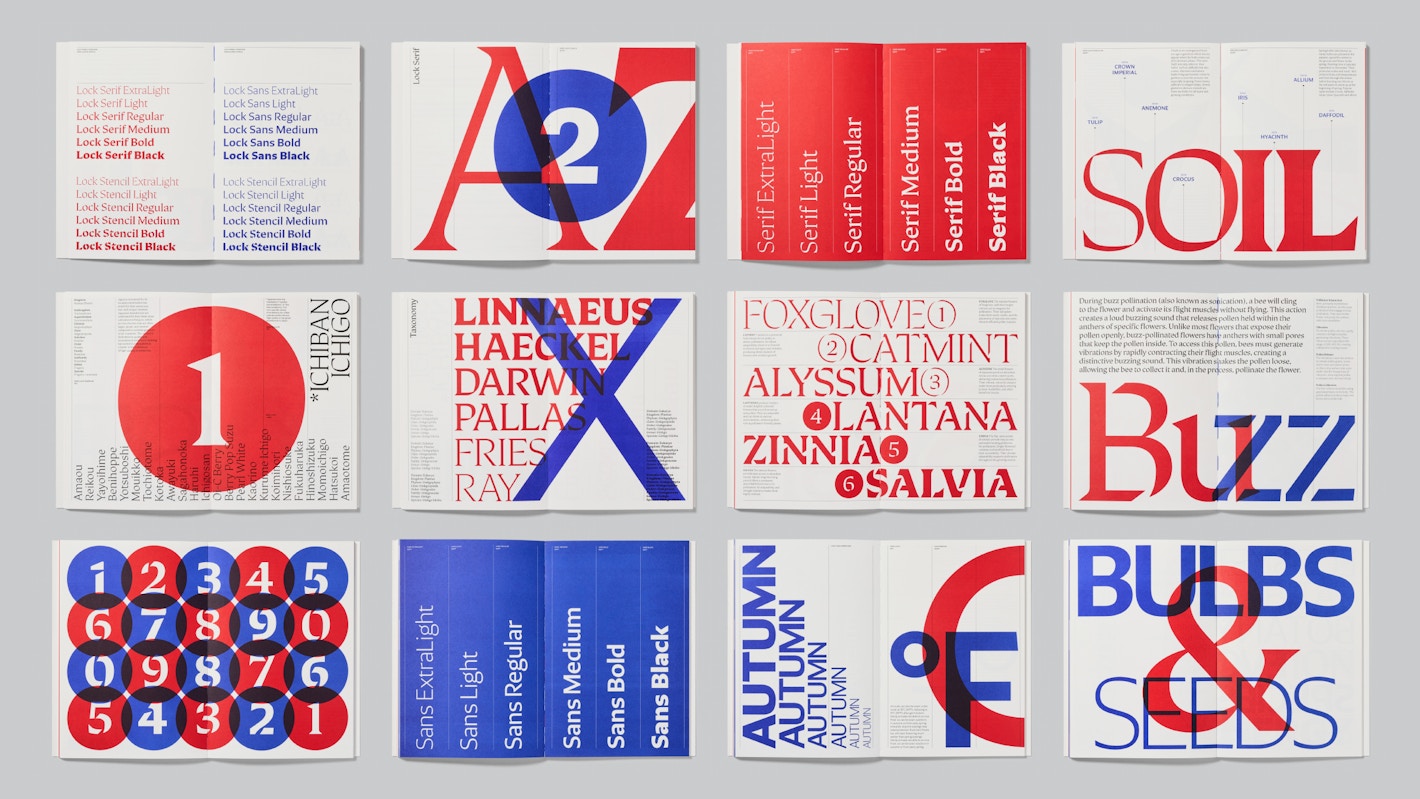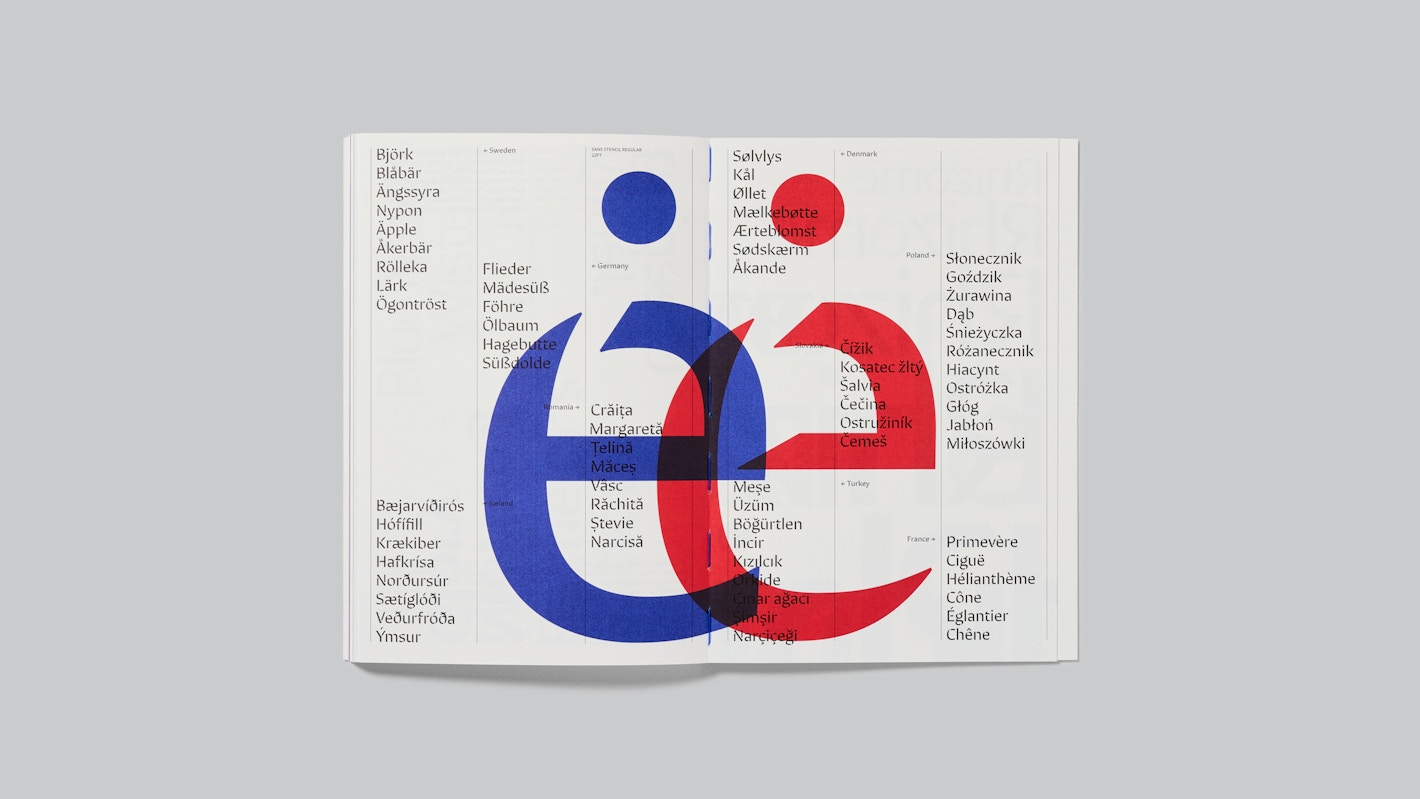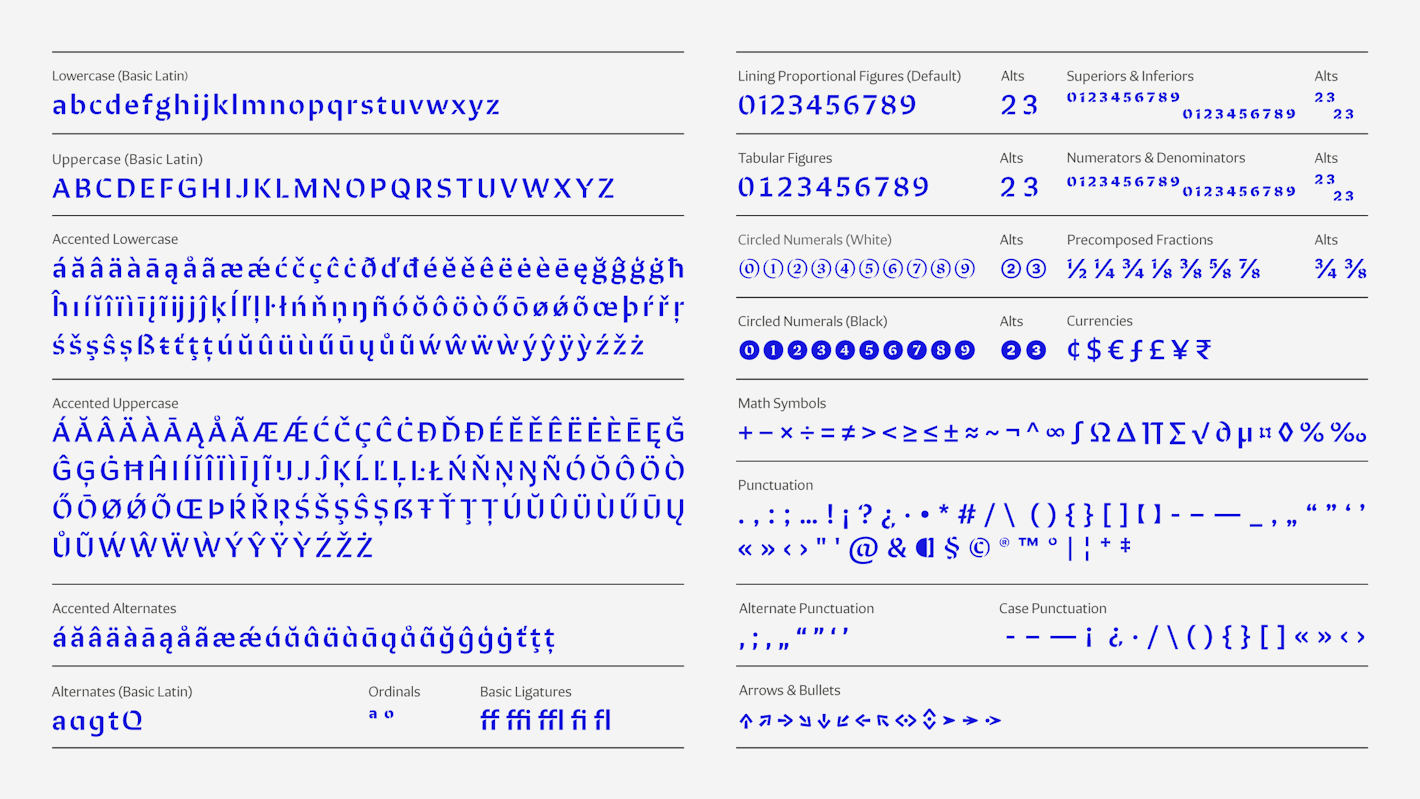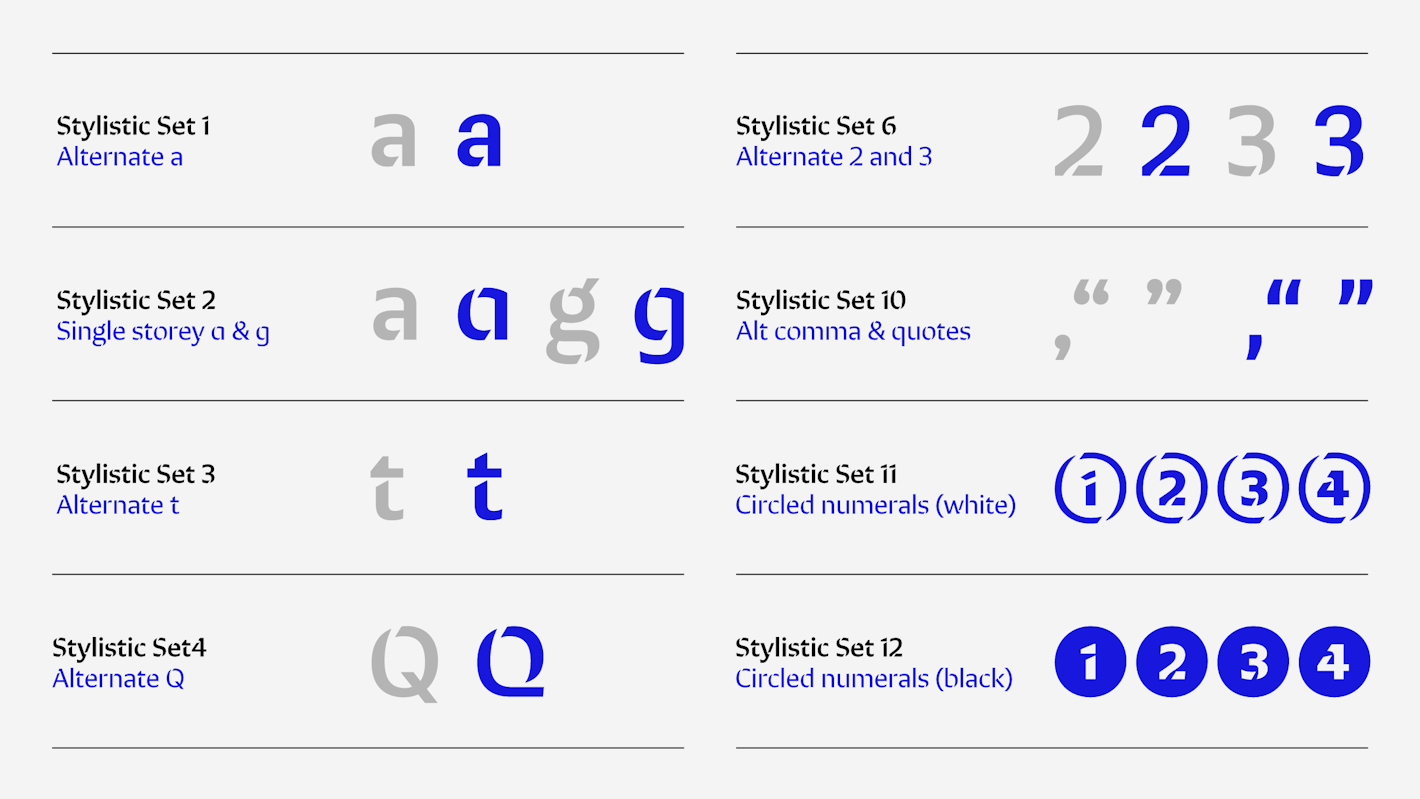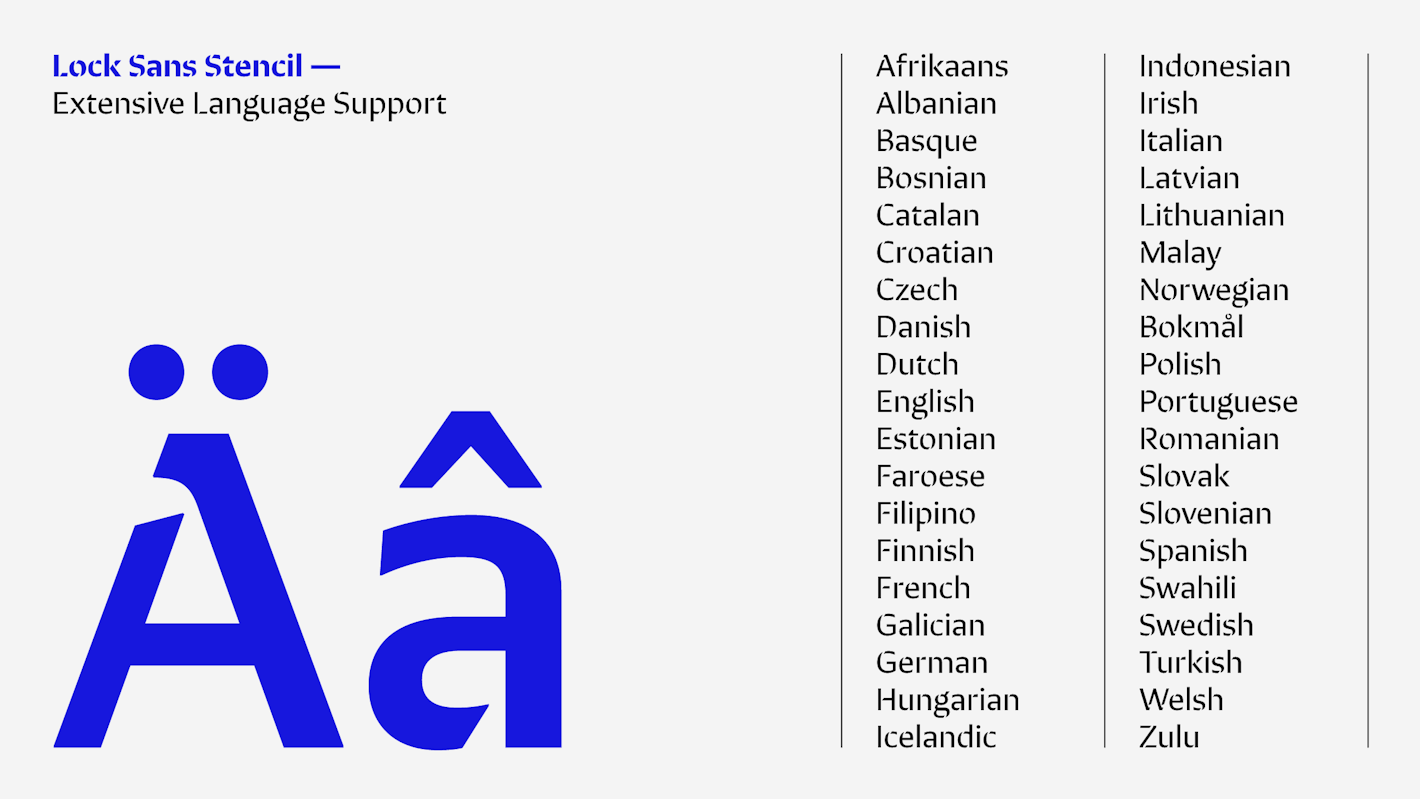
- Mark Bloom
- Diana Ovezea
Lock Sans Stencil takes the refined structure of Lock Sans and introduces playful stencil cutouts, offering a bold and industrial edge. This variant strikes a unique balance between functionality and creativity, making it perfect for standout designs.
Available in six weights from ExtraLight to Black, Lock Sans Stencil features glyph alternates for key characters like ‘a,’ ‘g,’ ’t,’ and ‘Q,’ along with arrows, circled numbers, as well as alternate commas and quotes. Lock Sans Stencil can be used interchangeably with Lock Sans, with no impact on text flow. The character set covers most Latin-based languages.
The stencil details give it a utilitarian, yet crafted feel, making it a bold choice for headlines, posters, or branding work where a more industrial and playful look is required.
Lock Sans Stencil belongs to the Lock family – a collection designed by Mark Bloom and Diana Ovezea. The family explores the intersection of broad-nib calligraphy and industrial design, offering both Sans and Serif variants with matching stencil counterparts.